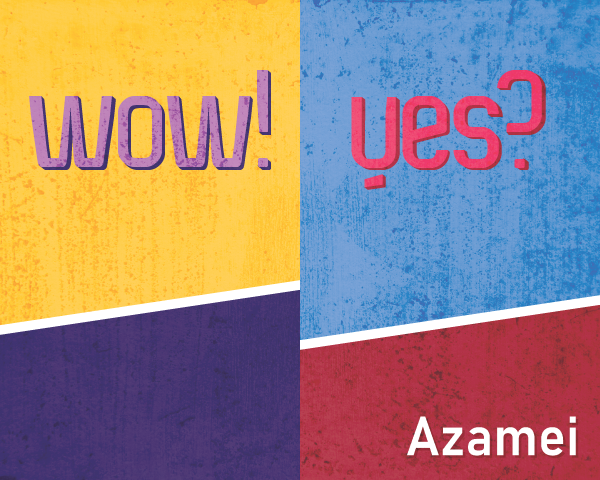
• It's been a while since I've been very active here FS. I had this very incomplete font sitting around in my library and I really adored the slick, yet modern feel of these characters.
These characters are relatively small, and I felt that I needed to truly push the boundaries with a limited set of blocks.
Very well balanced and clean design. Simple but very pleasant reading!
especilly the lowercase design
Updated 'M', 'N', 'a', and '@'.
'Q' and 'g' are deceptive because they look like they should be upper/lowercase of the same letter. Unless that was your intention?